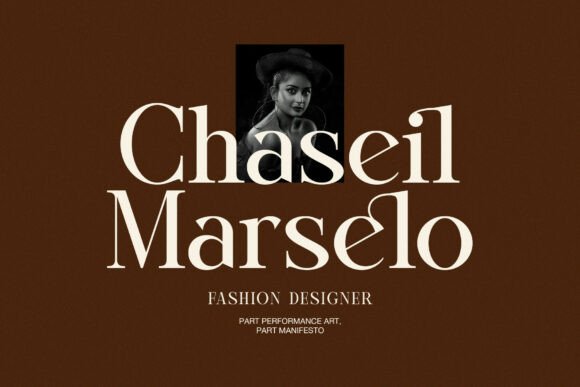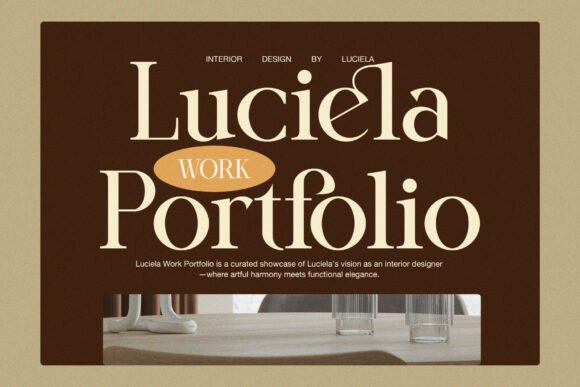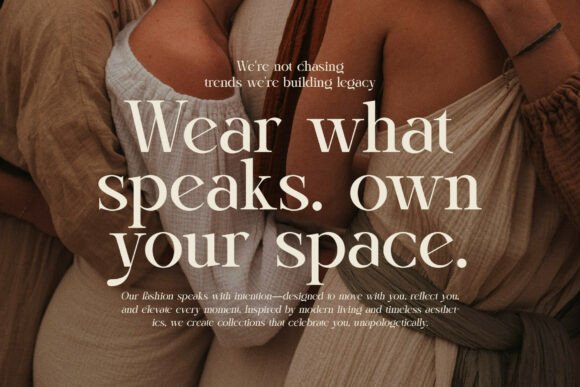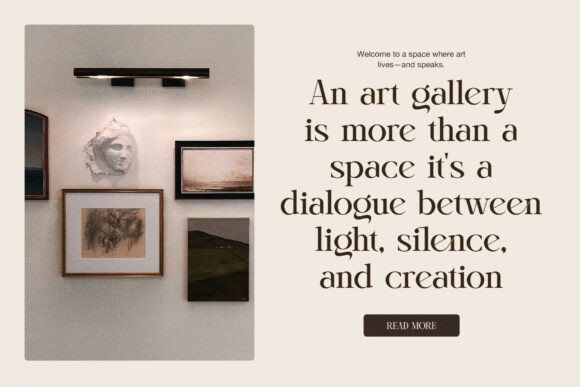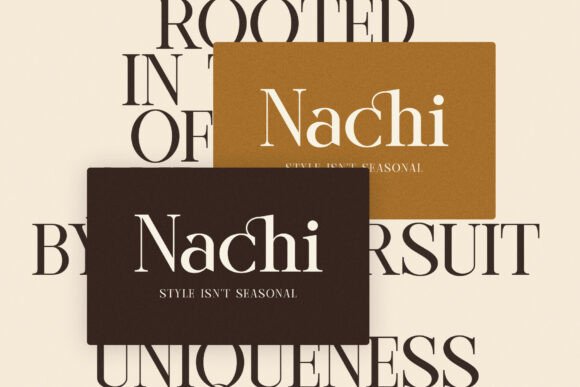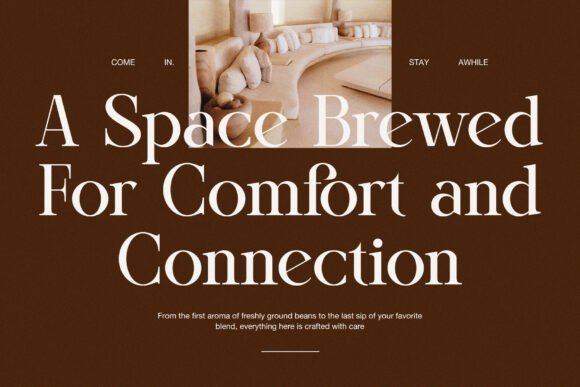
Introducing Encho Font: Elevate Your Design with Modern Serif Elegance
In the world of typography, finding the perfect font that balances modernity with timelessness can be a daunting task. However, for designers and creatives seeking a blend of clean structure and elegance, Encho Font emerges as a stellar choice. This modern serif font is meticulously designed to cater to professionals and creatives, offering a versatile typeface that can elevate any visual project to new heights of sophistication.
The Essence of Encho Font
Encho is not just another font; it’s an experience. It brings together the best of both worlds – the classic appeal of serif fonts and the sleekness of modern typography. This unique blend makes Encho an ideal choice for a wide range of design projects, from branding and magazine design to website typography. Its clean structure ensures readability, while its touch of elegance adds a level of sophistication that’s hard to achieve with more conventional fonts.
Designed for Professionals and Creatives
Understanding the needs of professionals and creatives, Encho Font is crafted to meet the demands of high-end design. Whether you’re working on a brand identity that requires a font with character, designing a magazine that needs to convey both authority and style, or creating website typography that must be both sleek and readable, Encho is up to the task. Its versatility means it can adapt to various design requirements, making it a valuable asset in any designer’s toolkit.
Key Features of Encho Font
• Modern Serif Design: Encho boasts a contemporary serif design that sets it apart from traditional serif fonts. Its modernity makes it suitable for designs that require a fresh feel.
• Clean Structure: The font’s clean lines and structure ensure high readability, making it perfect for body text and headings alike.
• Elegant Touch: What gives Encho its unique charm is the subtle touch of elegance. This makes it stand out in designs where a bit of sophistication is desired.
• Versatility: Encho can be used across various platforms and design projects. Its adaptability makes it a go-to font for designers looking for a reliable and stylish typeface.
Applications of Encho Font
The applications of Encho Font are vast and varied. Here are a few ways designers and creatives can utilize this versatile typeface:
• Branding: Create a lasting impression with a brand identity that exudes professionalism and elegance.
• Magazine and Editorial Design: Add a touch of class to your magazine or editorial design with Encho’s sophisticated look.
• Web Typography: Enhance your website’s typography with a font that is both modern and readable, ensuring a great user experience.
• Packaging: Stand out with packaging designs that incorporate Encho’s unique blend of modernity and elegance.
Encho Font is more than just a typeface; it’s a design statement. Its modern serif design, combined with a clean structure and an elegant touch, makes it an invaluable resource for designers and creatives. Whether you’re looking to elevate a brand, create a visually stunning magazine, or craft a sophisticated website, Encho is the perfect companion. With its versatility and timeless appeal, Encho Font is poised to become a favorite among design professionals looking to add polish and refinement to their projects.
Encho Font is not just a font; it’s a design solution that brings a blend of modernity and elegance to the table. For designers and creatives on the lookout for a typeface that can add a level of sophistication to their projects, Encho is undoubtedly worth exploring.